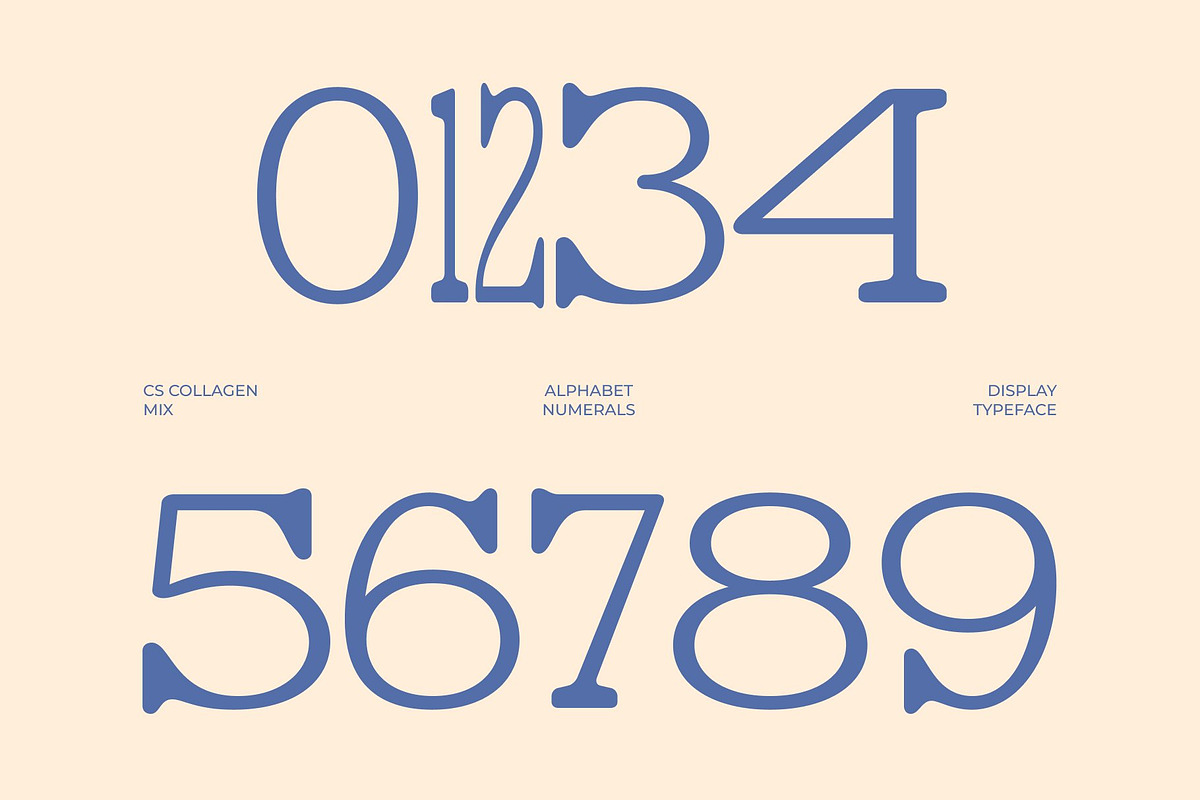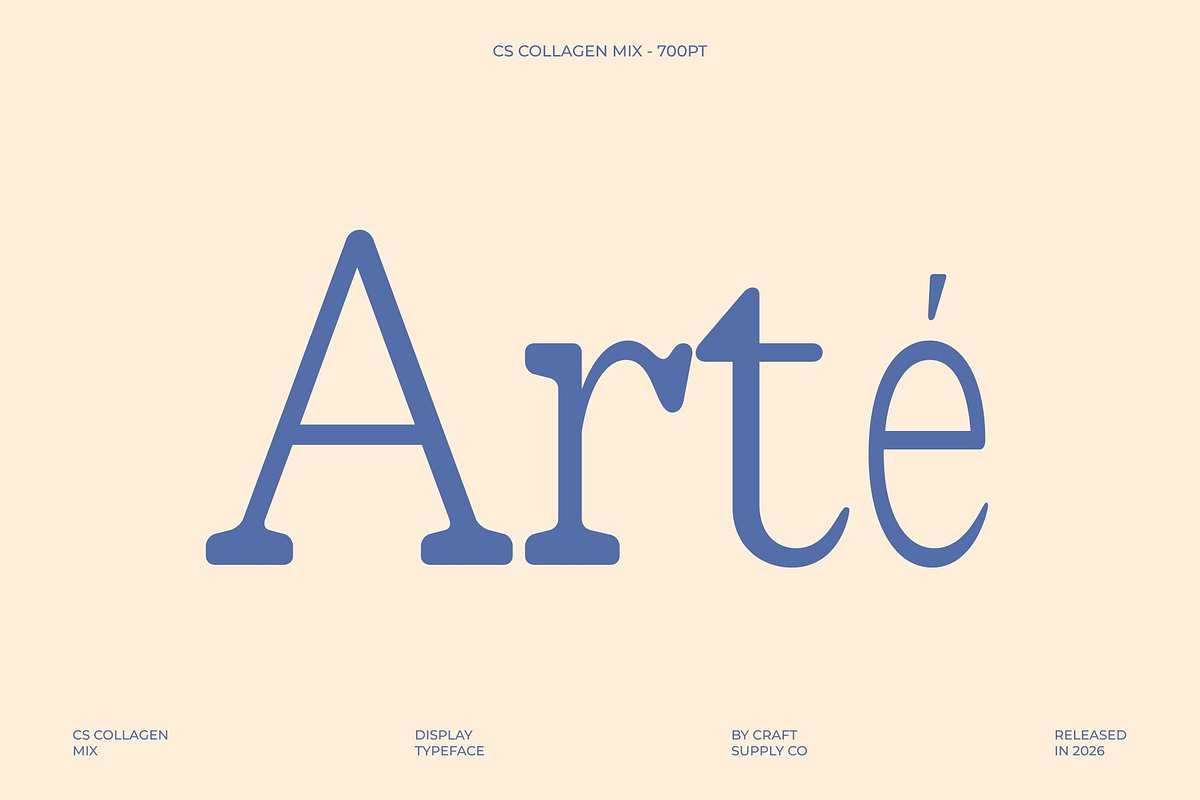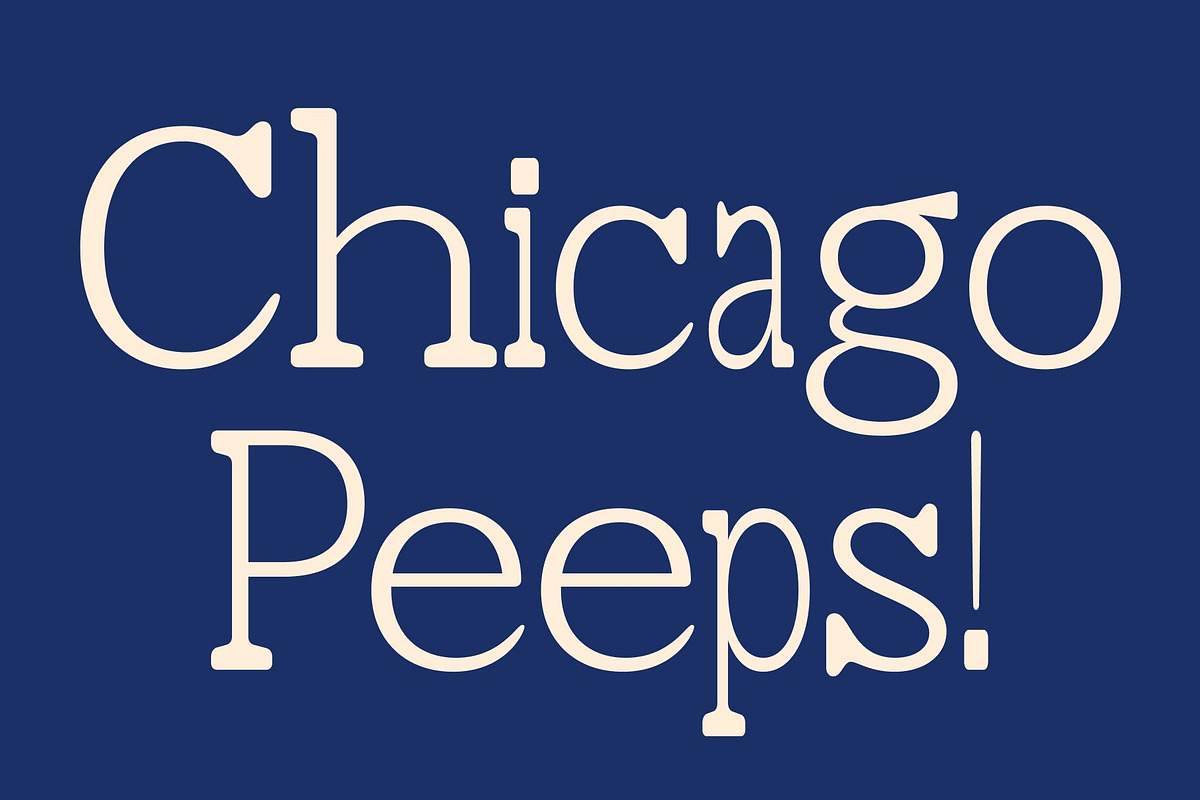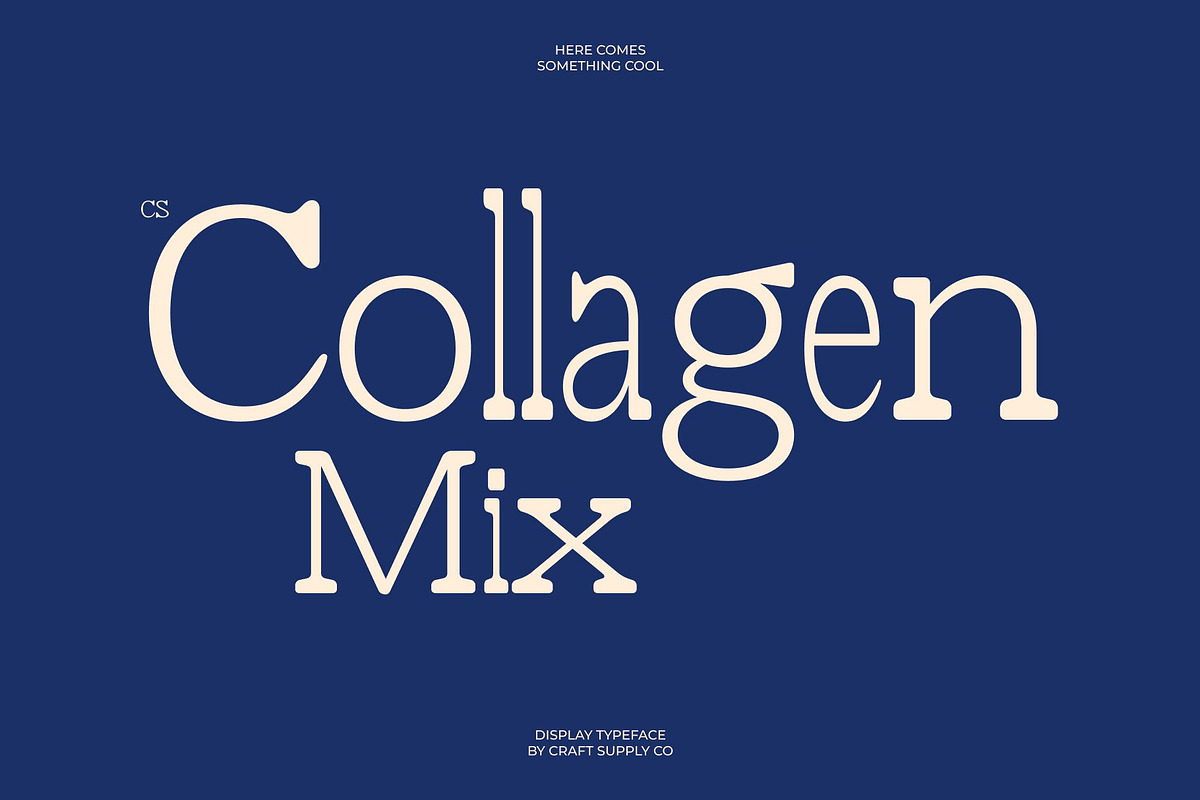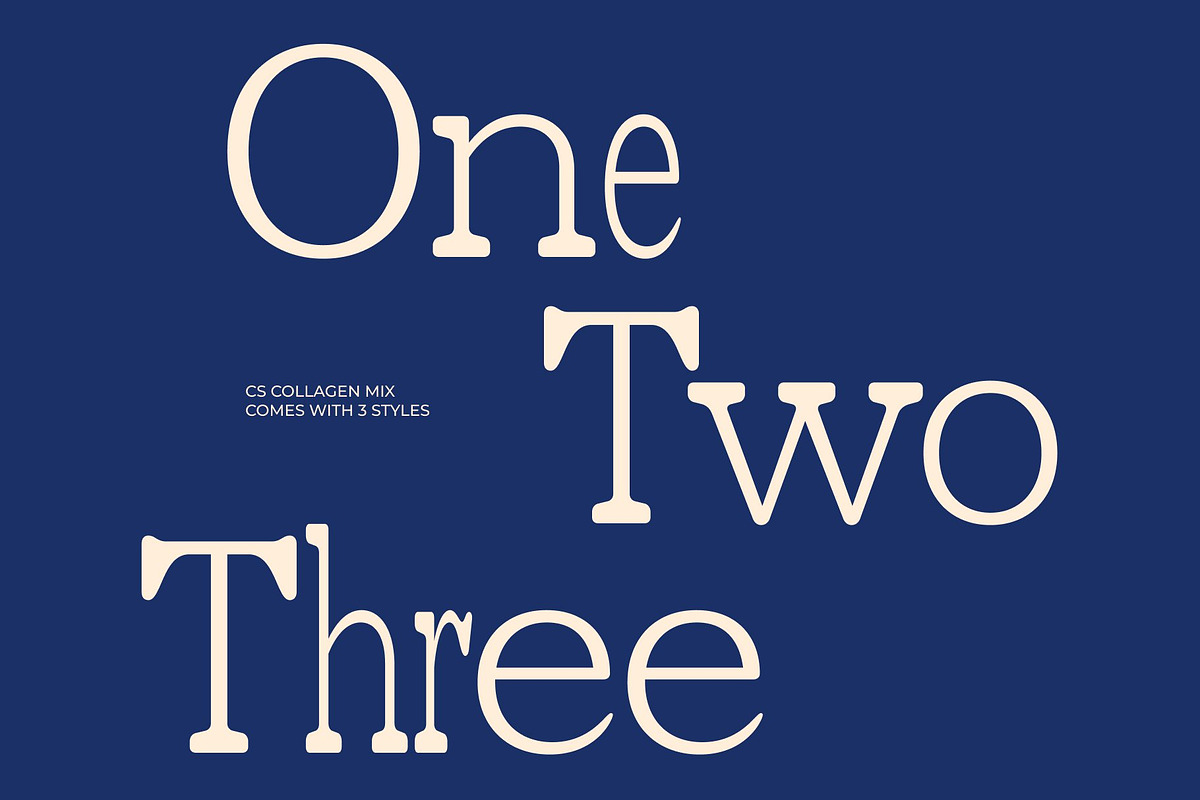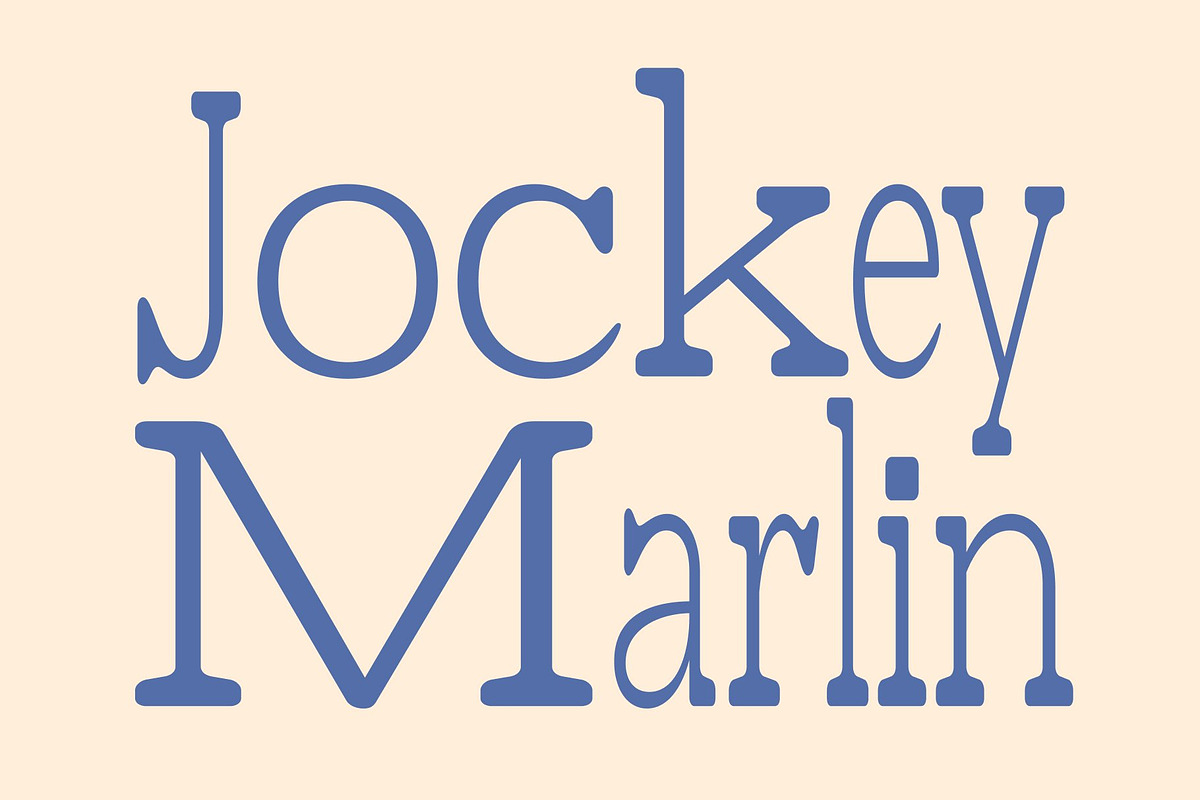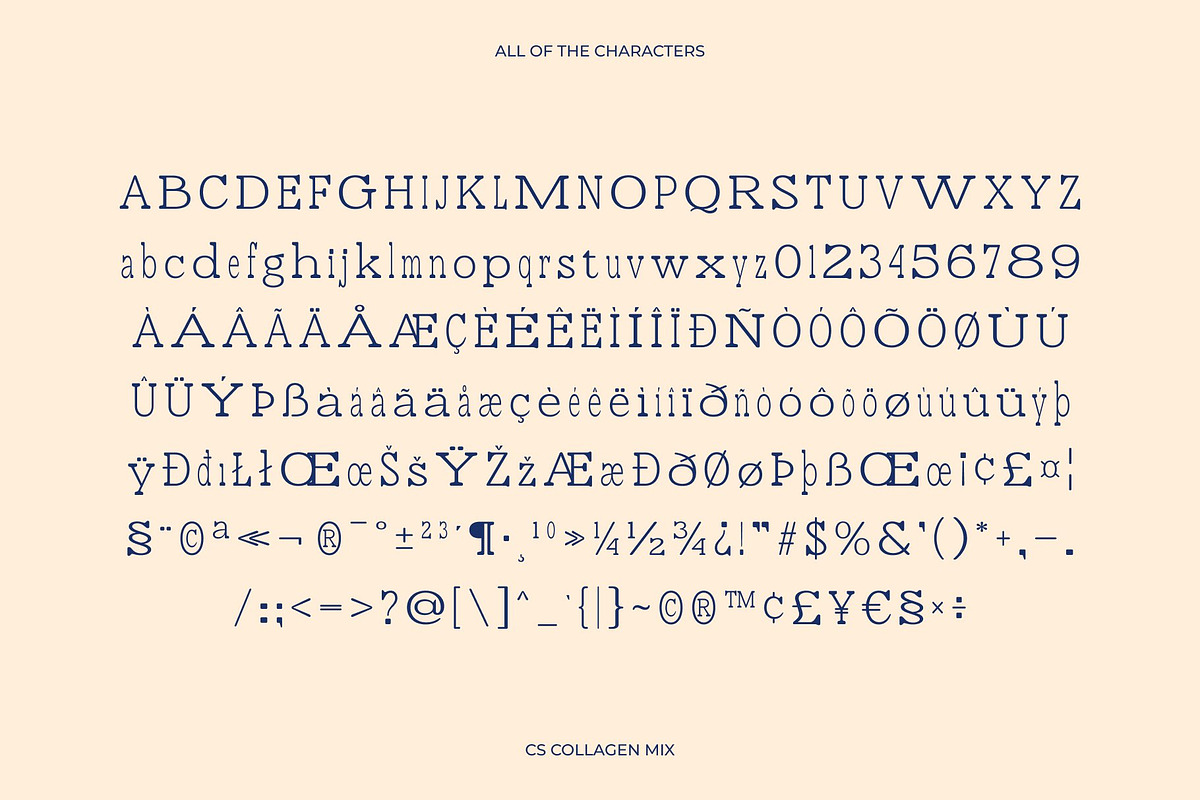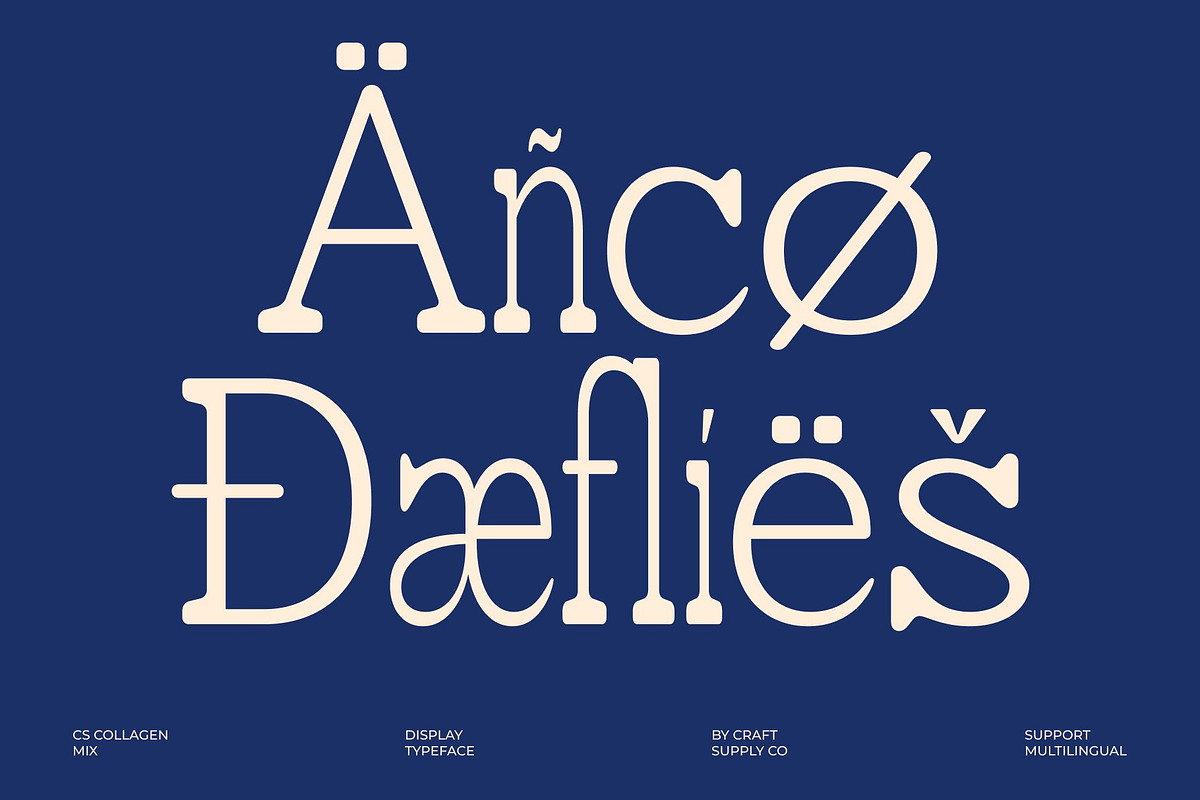
CS Collagen Mix
CS Collagen Mix – Modern Serif Font: Timeless Sophistication with Contemporary Elegance
Modern Serif with Mixed Style Character This is a refined modern serif font designed to combine timeless elegance with contemporary sophistication. Crafted with balanced proportions, clean lines, and carefully refined details, this typeface introduces a distinctive mixed-style concept that adds subtle contrast and visual rhythm to every composition.
A Refined Blend of Regular and Bold Letterforms The defining character of lies in its thoughtful fusion of regular and bold styles. This mixed-weight approach creates a sophisticated typographic hierarchy that enhances readability while adding depth and personality. The contrast between weights introduces visual movement and modern appeal, allowing layouts to feel dynamic while maintaining a polished and cohesive appearance.
Balanced Structure with Luxurious Appeal This font seamlessly balances sharp serifs and graceful curves to create a typeface that feels both structured and elegant. Its clean construction delivers clarity and professionalism, while its refined details add warmth and character. This harmony between modern simplicity and classic serif beauty makes the font ideal for projects that demand sophistication and visual excellence.
Perfect for Branding, Editorials, and Premium Packaging From luxury branding and editorial design to websites and high-end product packaging, this font adapts beautifully across a wide range of applications. Its excellent readability ensures strong performance in both print and digital media, while its timeless aesthetic elevates every design with confidence and style.
CS Collagen Mix One
CS Collagen Mix Two
CS Collagen Mix Three